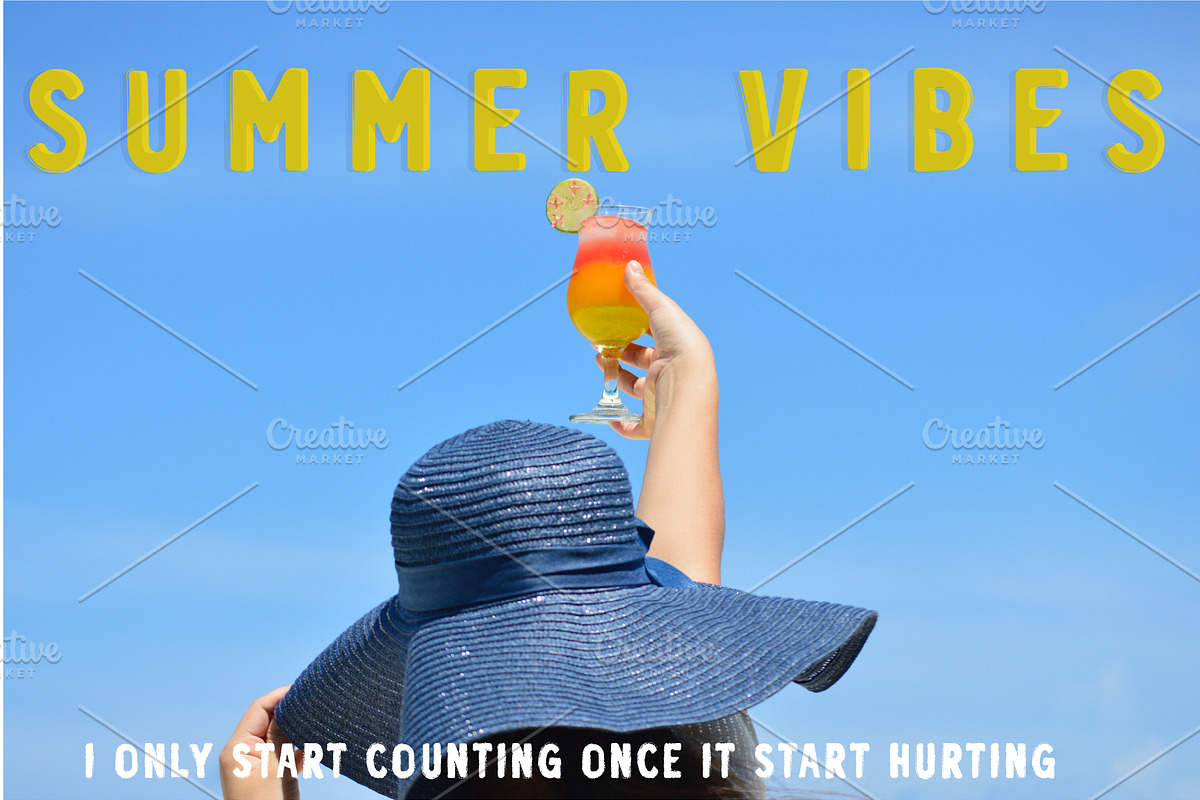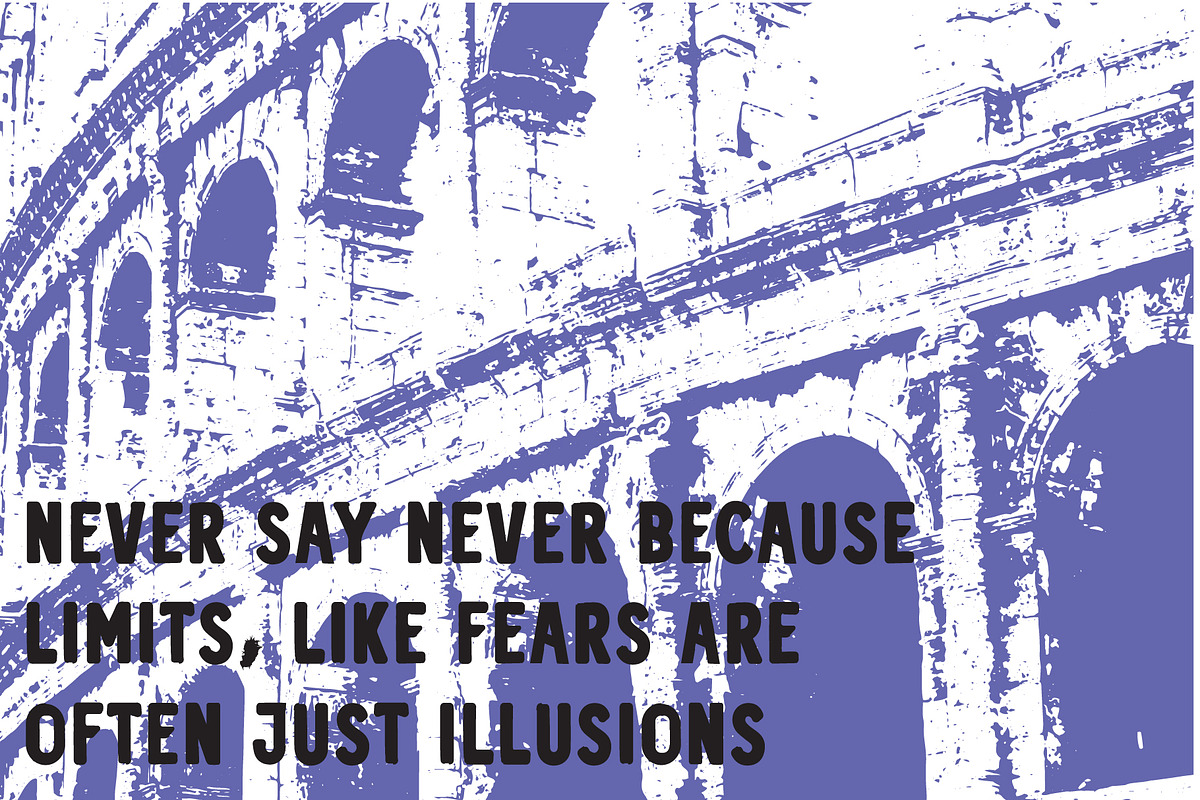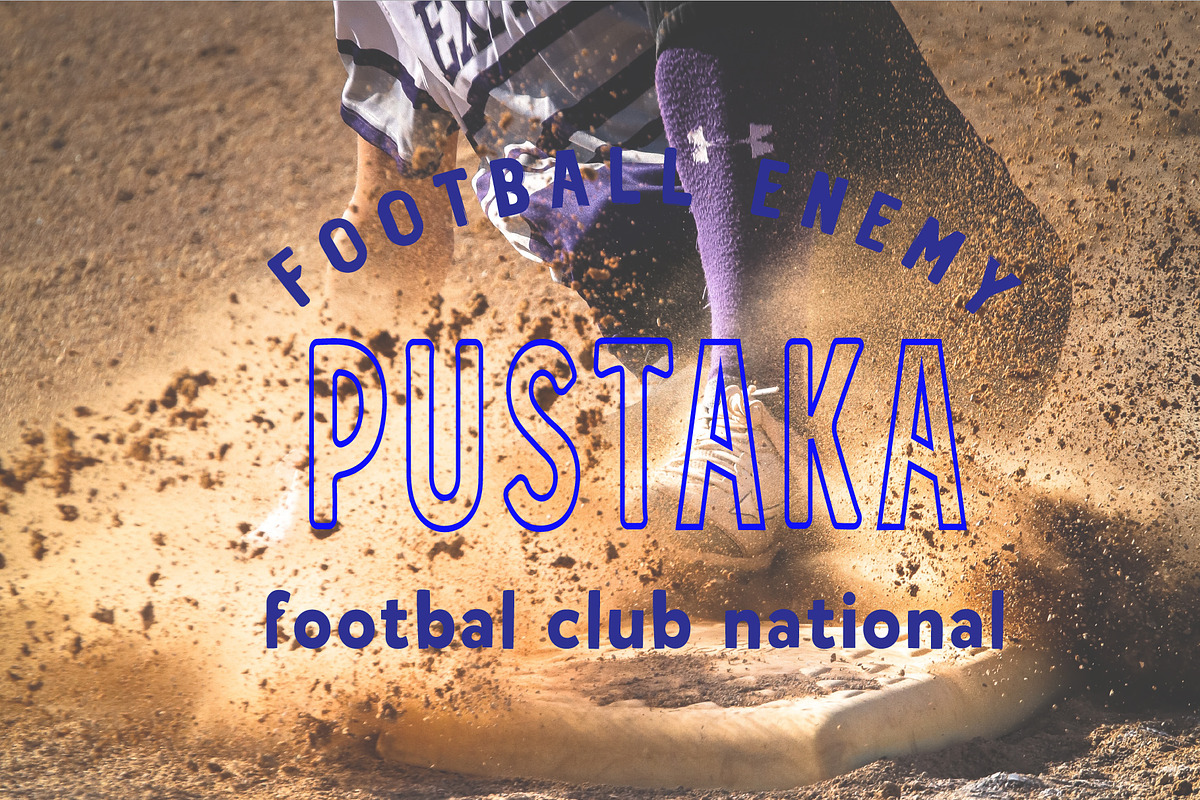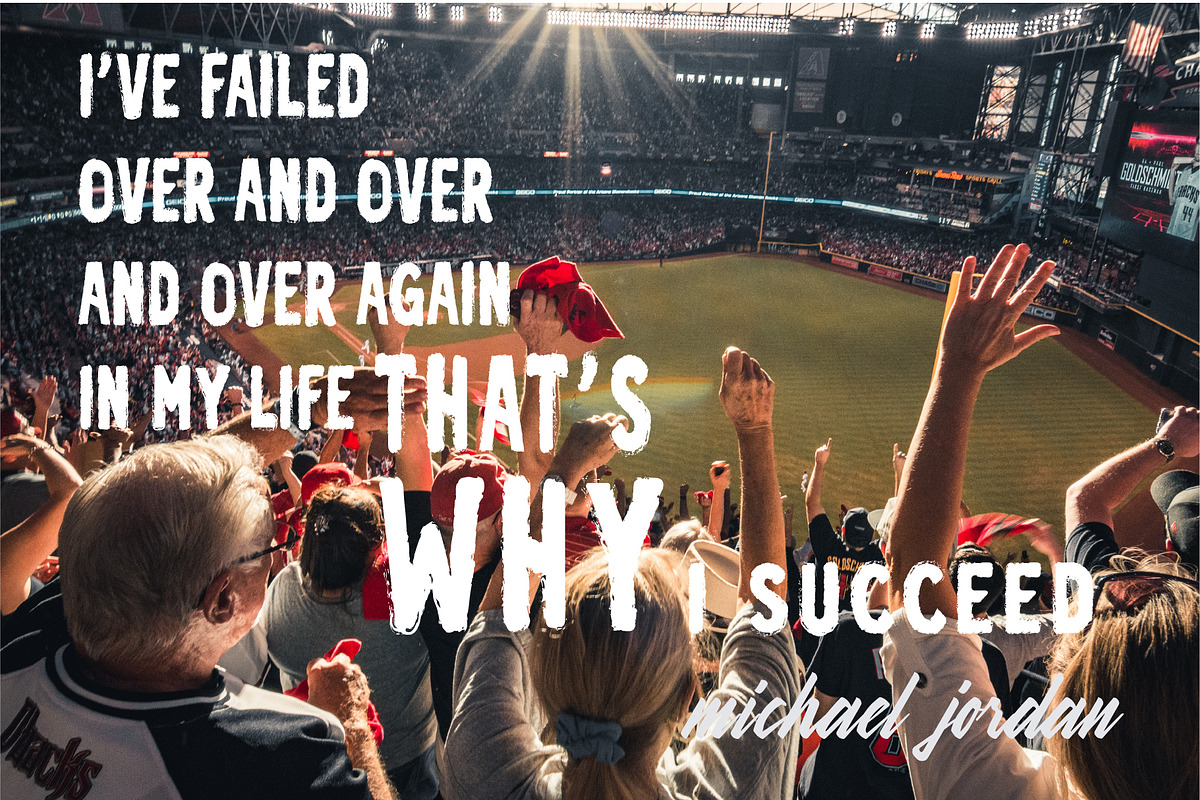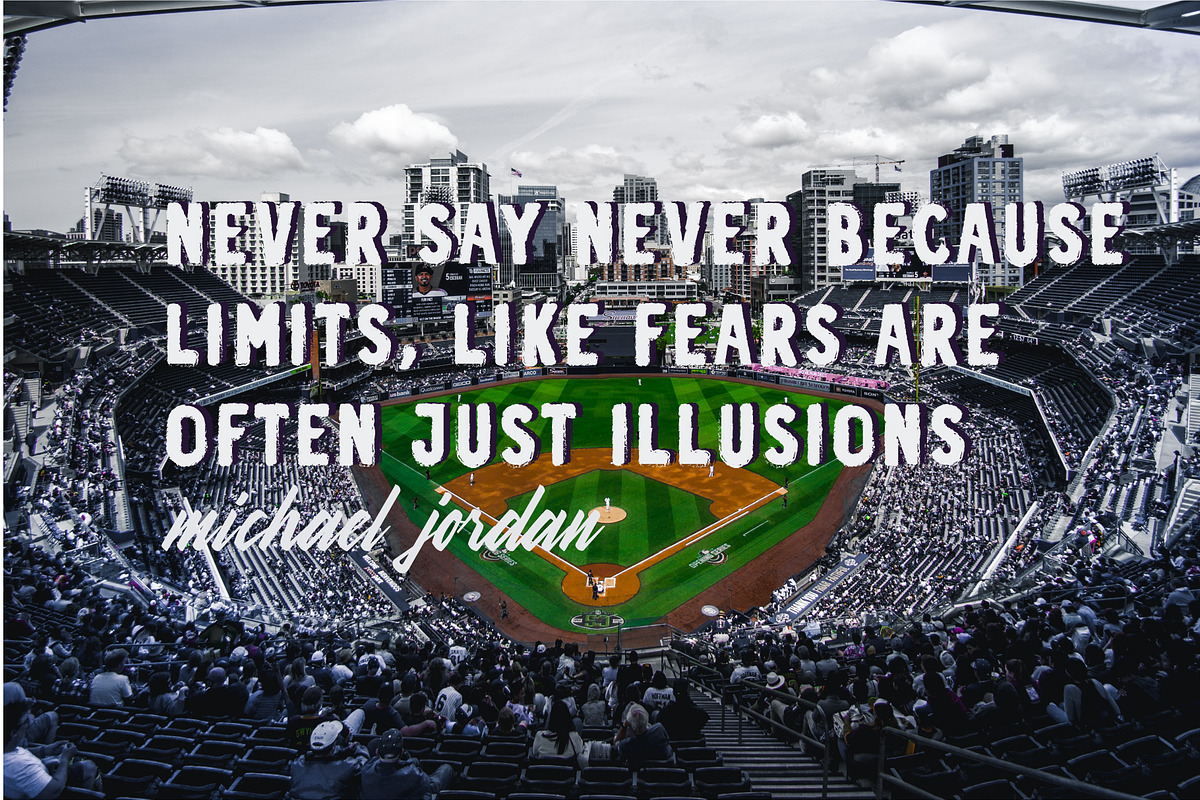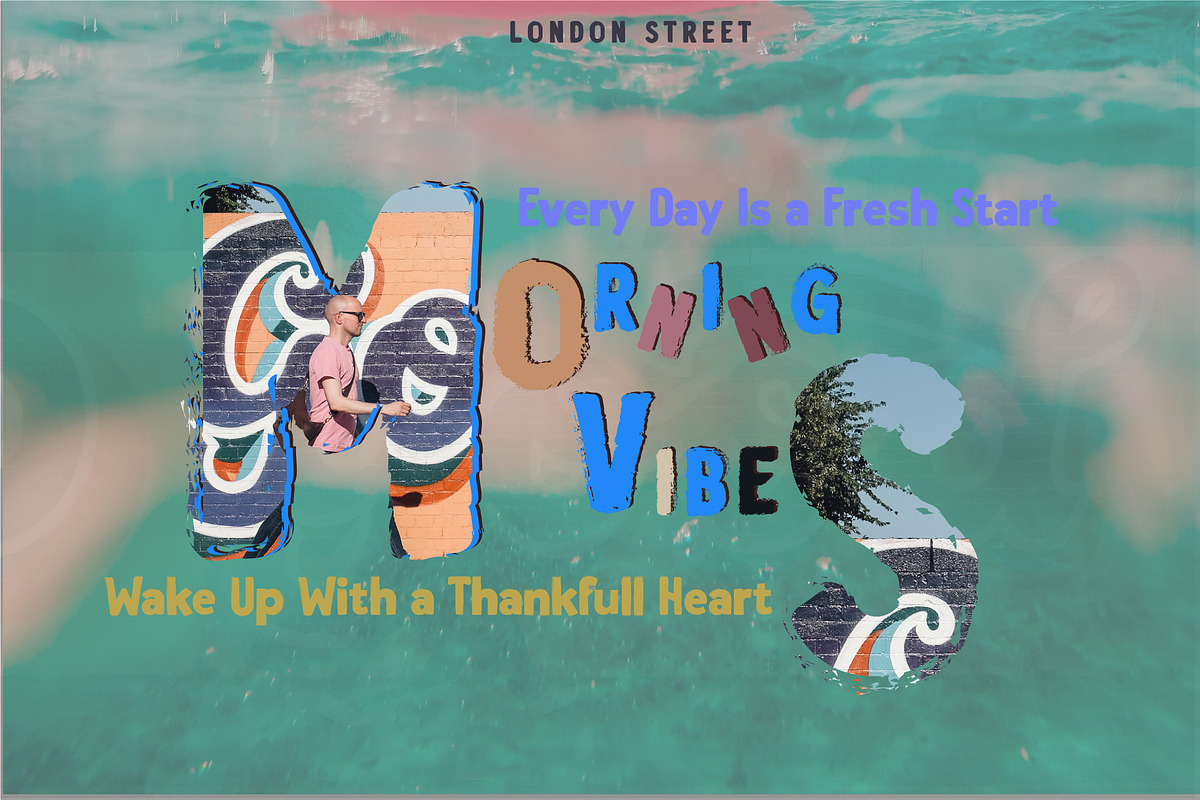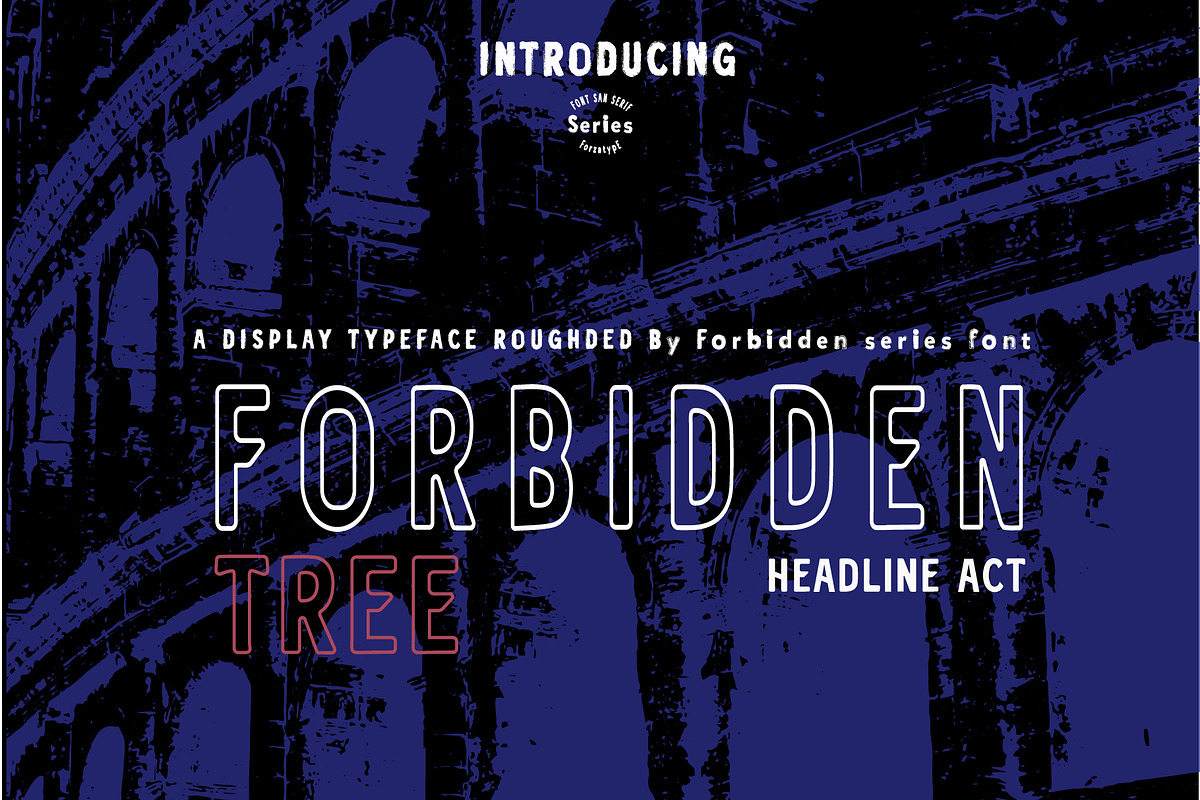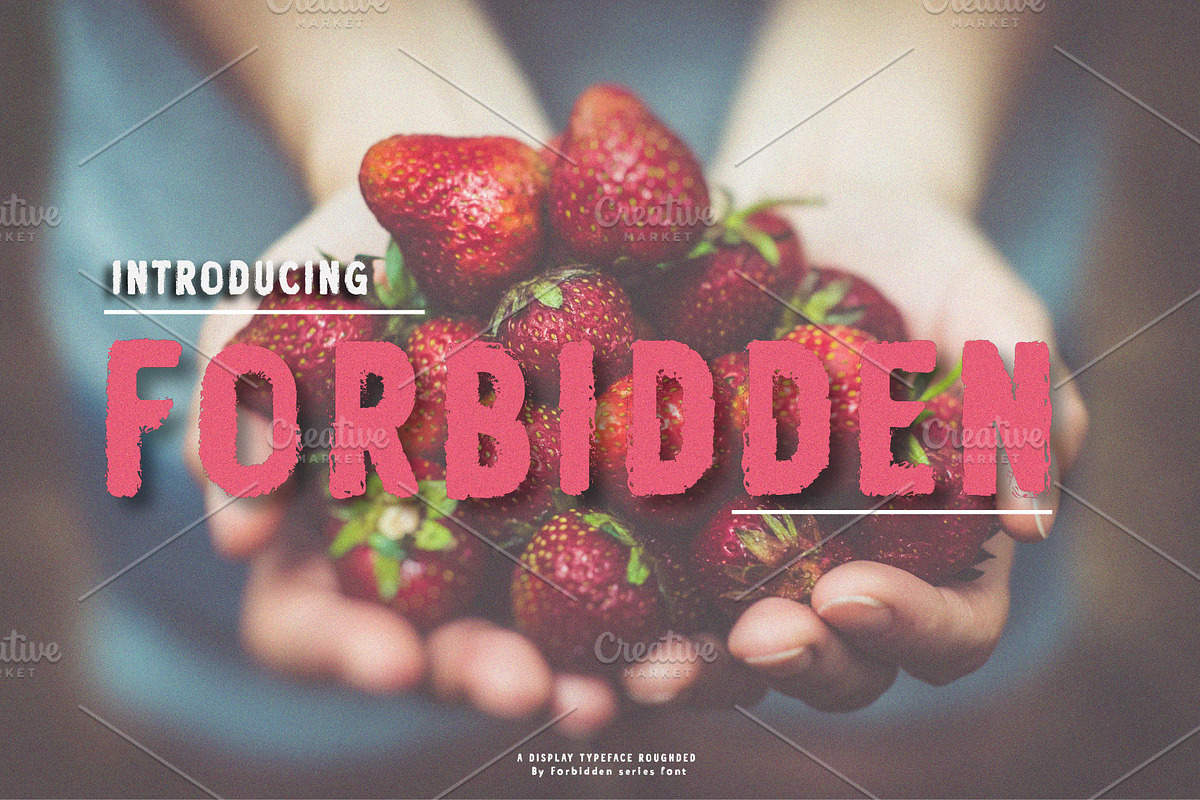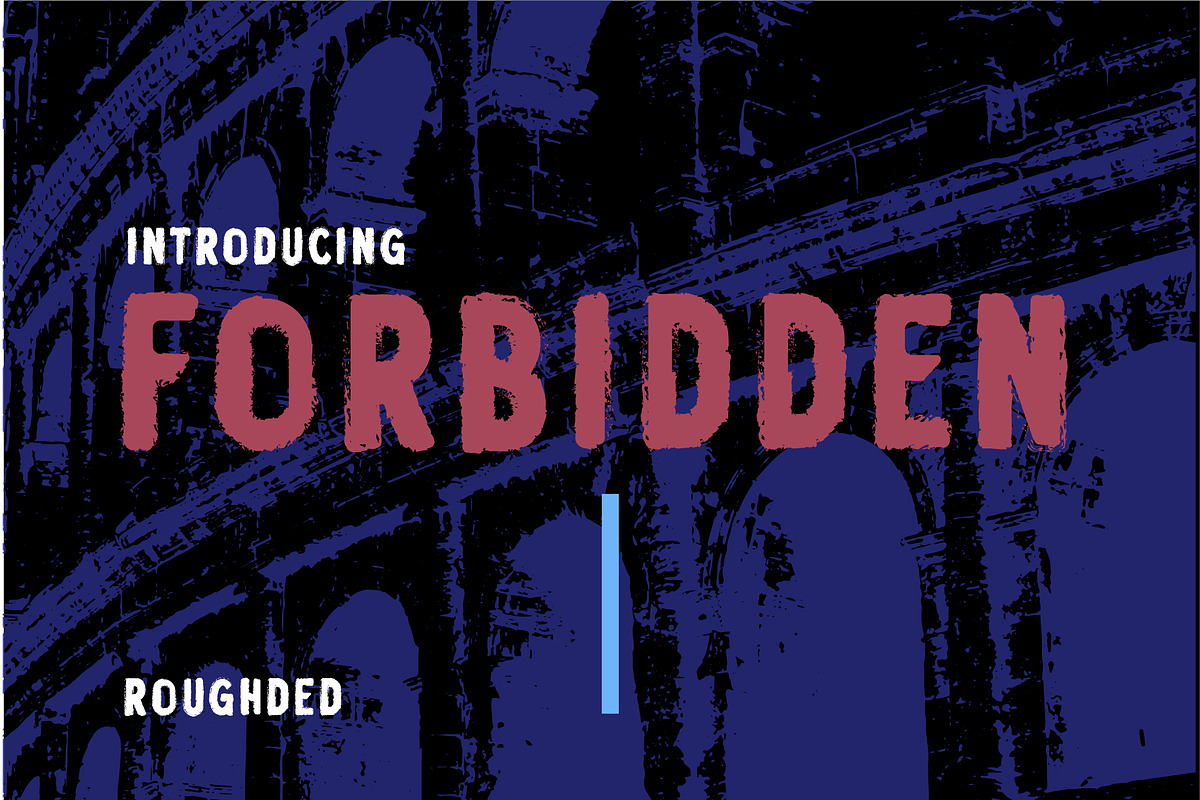
Forbidden tree roughded /forzatype
Forbidden Tree is a display font that exudes elegance, classic charm, and a captivating vintage touch. With a design inspired by timeless aesthetics of the past, this font blends elements that make it truly special. With letters that flow gracefully and elegantly, Forbidden Tree Holistic imparts a strong and exclusive impression. Each letter is meticulously crafted, featuring classic details that create a sense of luxury and timelessness. The font style creates a distinctive ambiance, combining classic simplicity with a vintage touch. When you gaze upon it, you’ll immediately be entranced by its undeniable opulence, as if you’re peering into an ancient book filled with forbidden secrets. Forbidden Tree is the perfect choice if you want to infuse your design with elements of vintage, elegance, and classic allure, all in one captivating package. This font will make your design shine with unforgettable luxury. Forbidden Tree , with its regular and vintage styles, offers a versatile range of design options. This font also includes a substantial collection of alternate characters, adding a touch of uniqueness to every creation. It’s an ideal choice for various design applications, including logotypes, sports branding, posters, apparel design, magazine headlines, labels, and much more.